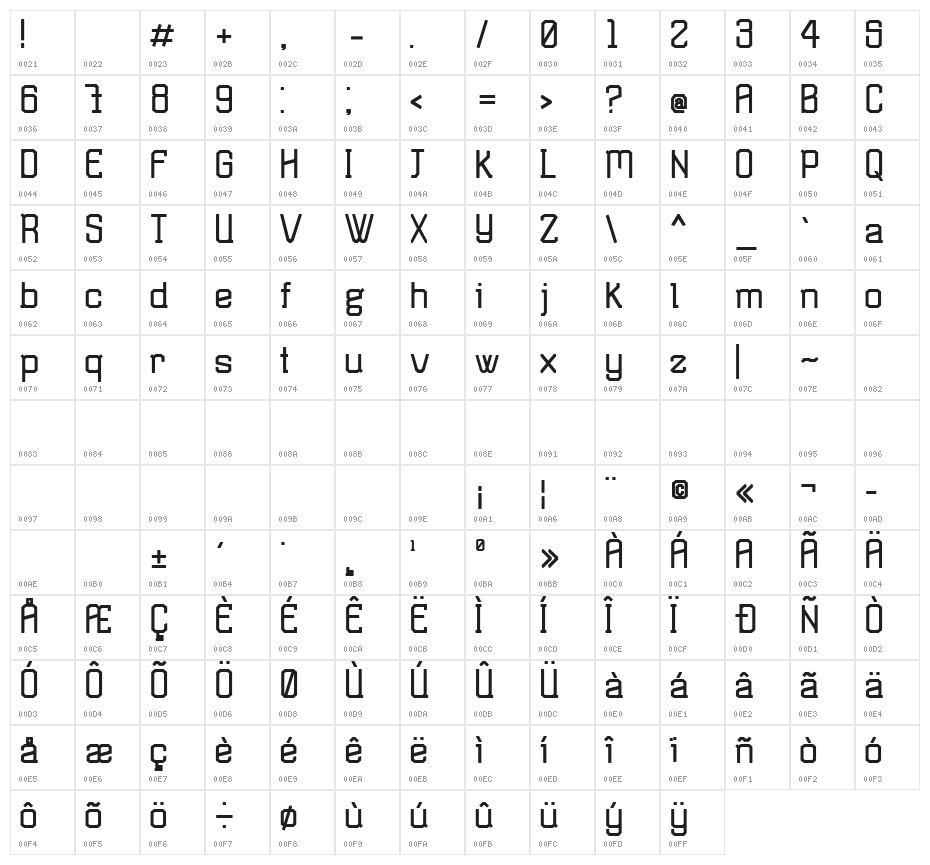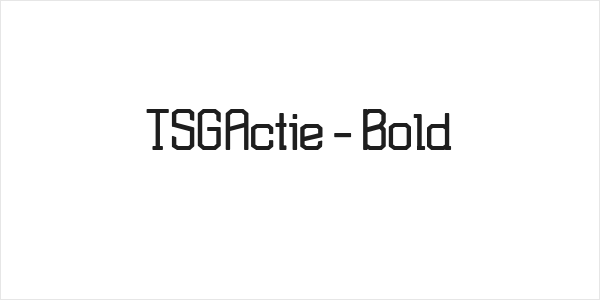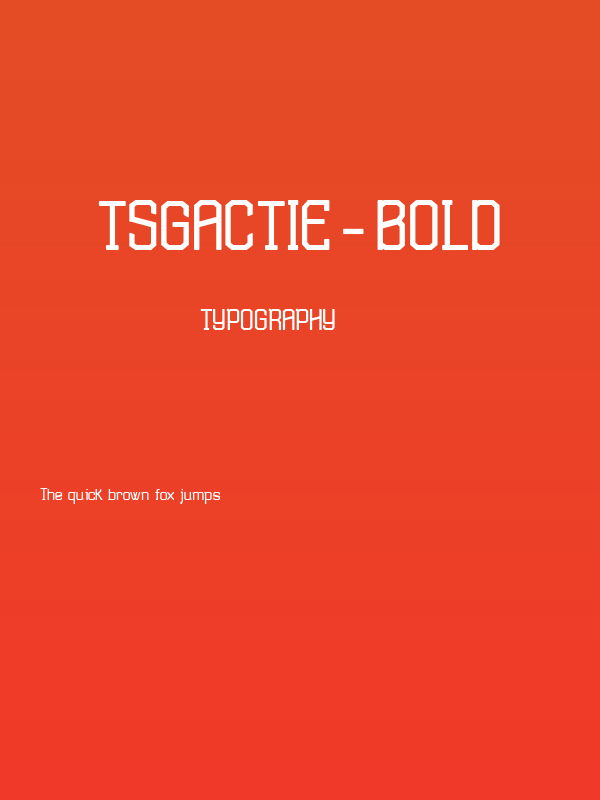
TSGActie-Bold Font
TSGActie-Bold Description
This font features a bold, geometric style with a modern and industrial feel. The characters are constructed with uniform stroke widths, giving it a monospaced appearance, although it is not strictly monospaced. The uppercase and lowercase letters maintain a consistent height, contributing to a clean and organized look. The numerals and special characters are designed to match the overall aesthetic, ensuring a cohesive appearance across all text. The font's structure is slightly condensed, which enhances its readability and allows for efficient use of space. Its boldness and clarity make it suitable for various design applications where impact and legibility are key.
Overall StyleModern, Industrial
Use CaseHeadlines, Logos, Signage
Proposed ProjectsIdeal for branding, signage, posters, and any project requiring a strong, modern aesthetic.